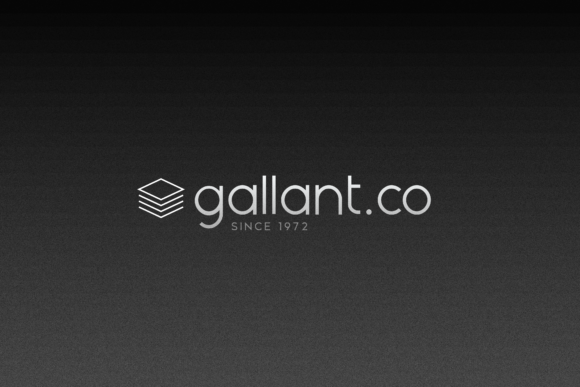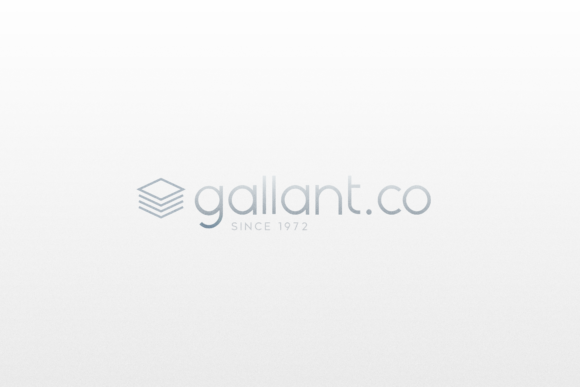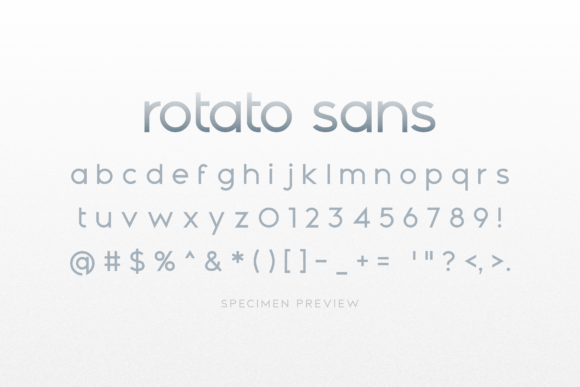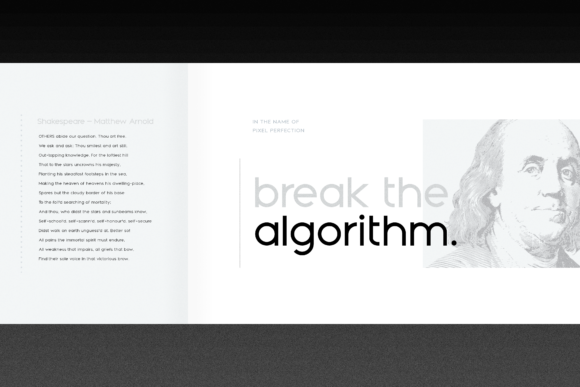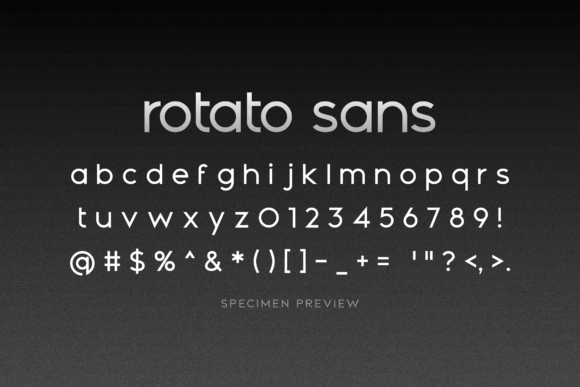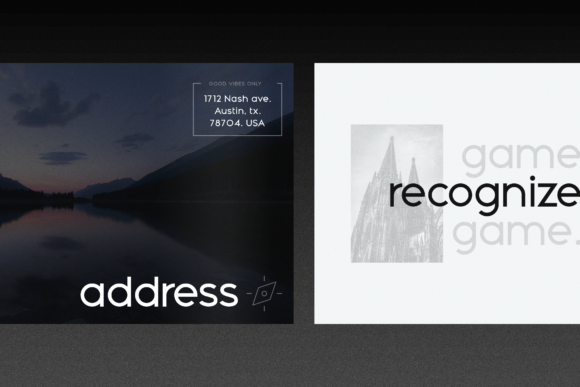
Introduction to Rotato Font
Rotato is a modern and versatile sans serif font.
Rotato Font offers exceptional quality and versatility, making it a valuable addition to your design toolkit. Whether you’re creating for personal projects or commercial use, Rotato Font delivers professional results.